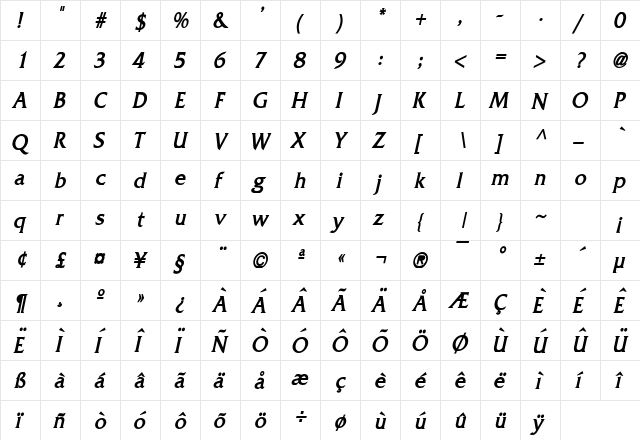
Franco Condensed Bold Italic Font Preview
Design Context for Franco Condensed Typeface
Franco Condensed takes a measured approach to typography — its balanced proportions and neutral character make it a reliable workhorse for both digital and print work. The slanted form adds forward momentum and visual energy. Its bold stroke weight gives it real presence on the page. The condensed width makes it efficient for tight spaces without sacrificing legibility.
Pro Tip: Use Franco Condensed for emphasis, pull quotes, and subheadings where its slanted energy can add rhythm to the layout.